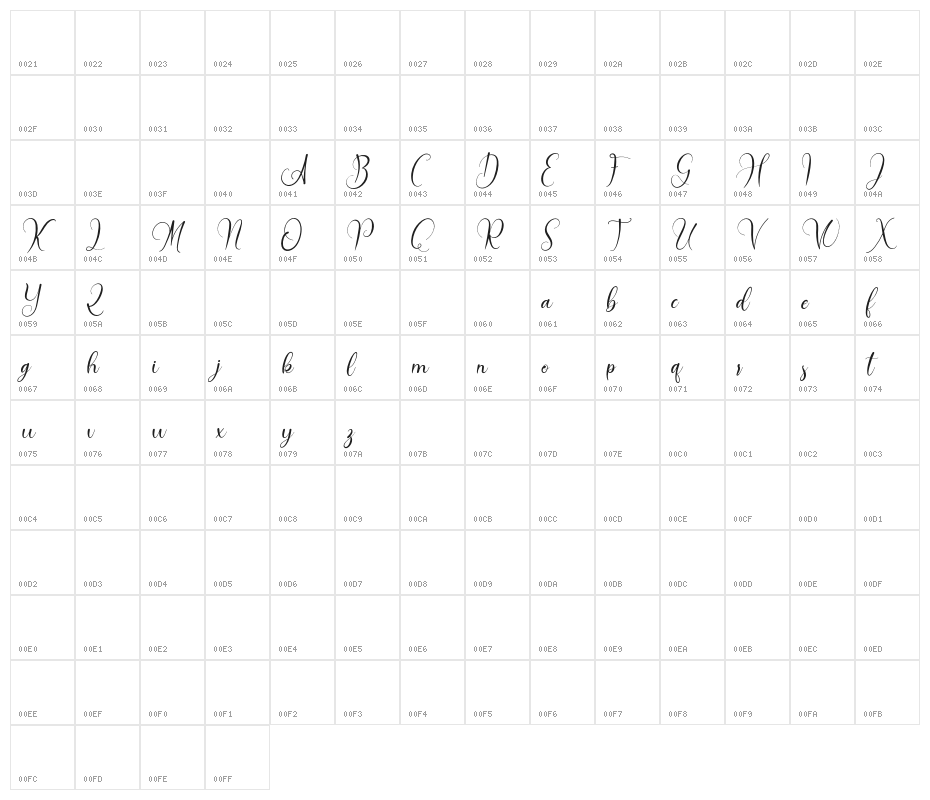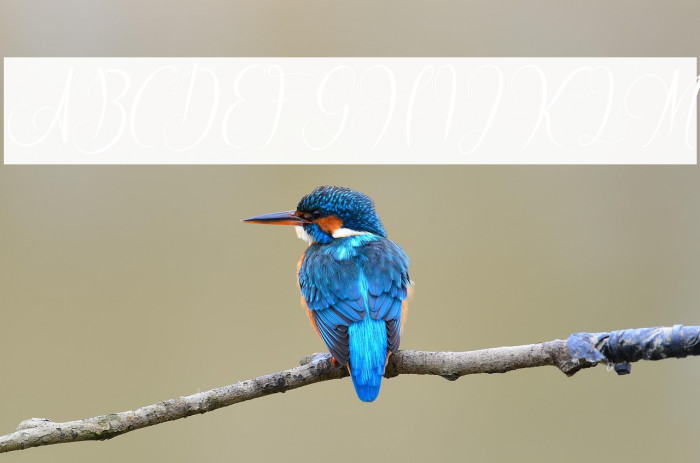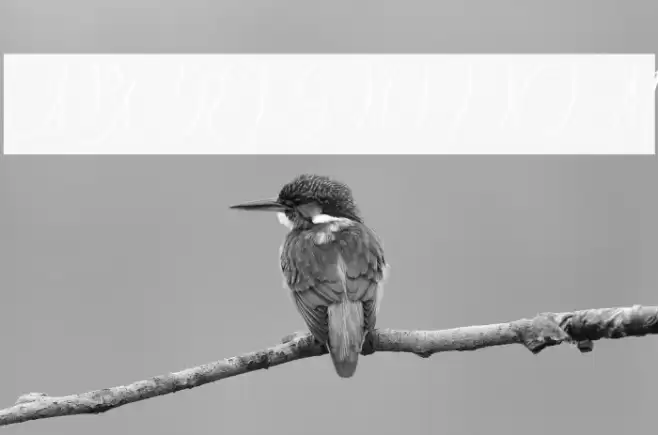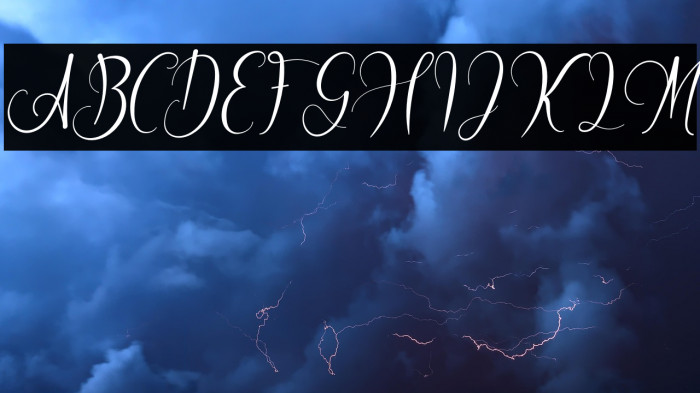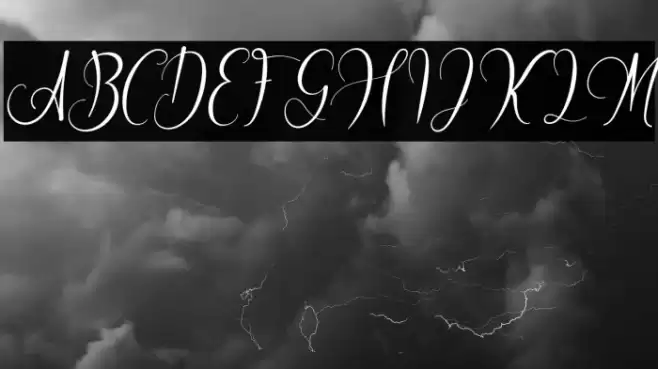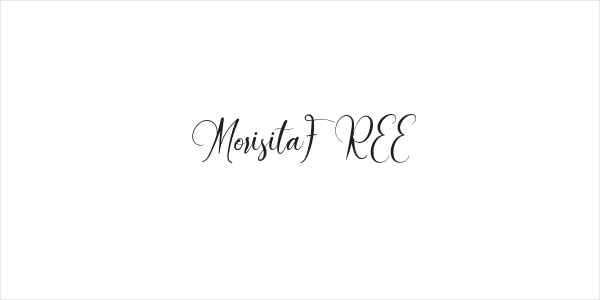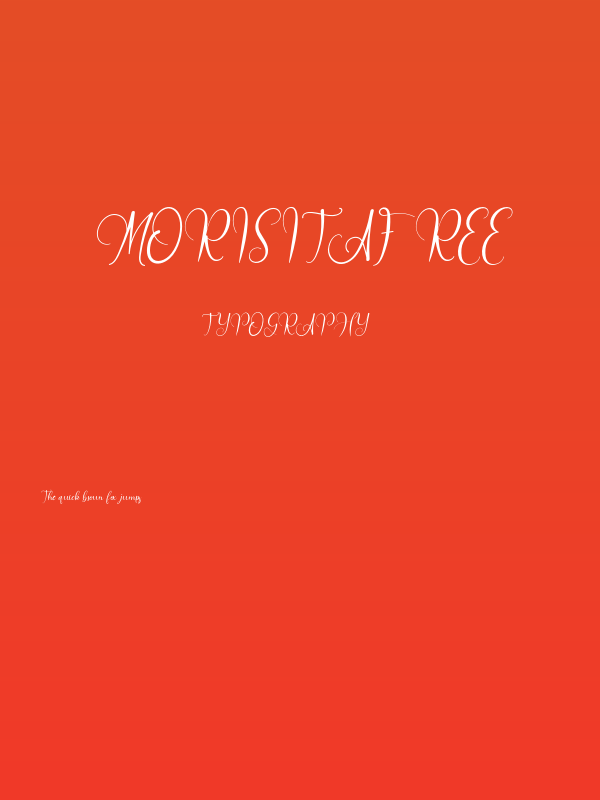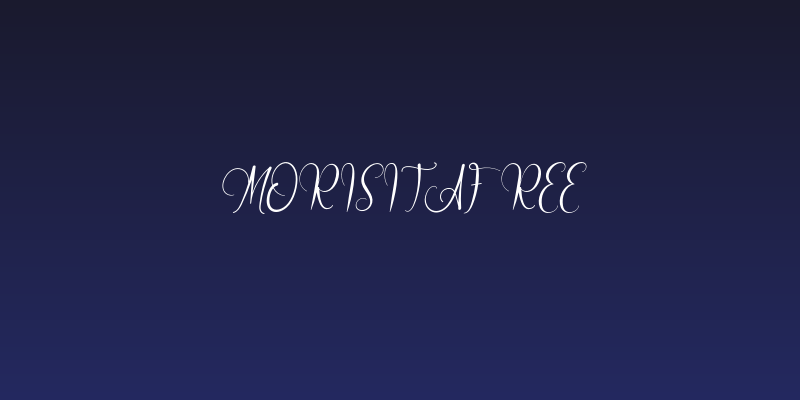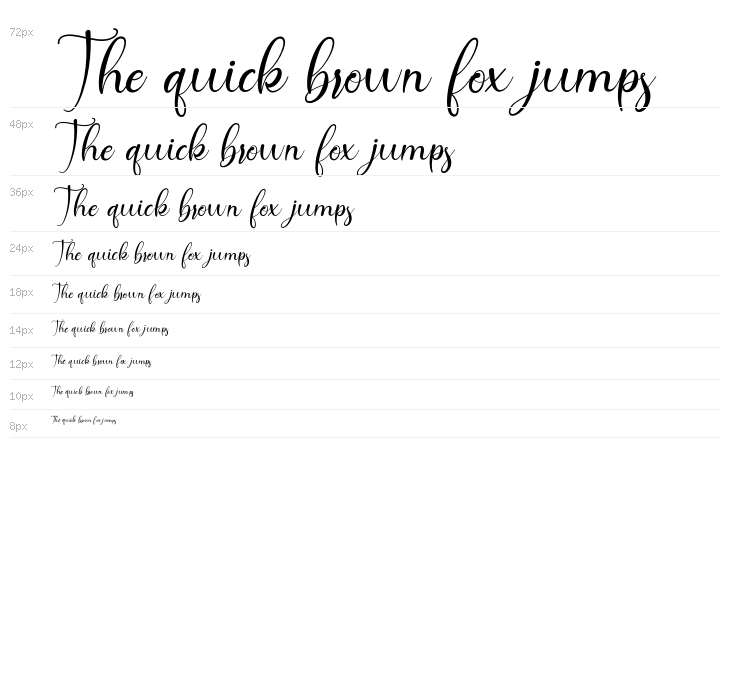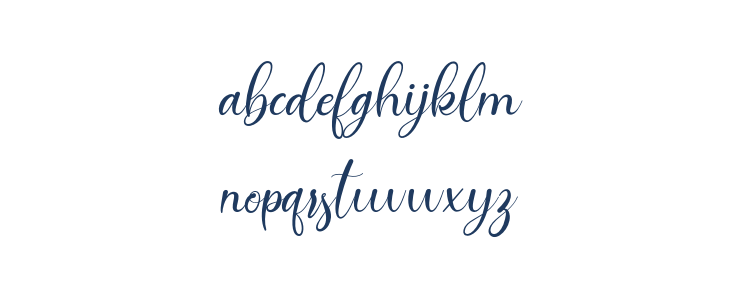
MorisitaFREE Font
MorisitaFREE Description
This font features an elegant and flowing script style, characterized by its graceful curves and fluid strokes. The uppercase letters are ornate, with sweeping lines and delicate flourishes that add a touch of sophistication. The lowercase letters maintain a consistent flow, complementing the uppercase with their smooth, connected forms. The overall appearance is both stylish and refined, making it suitable for formal invitations, branding, and decorative purposes. The font's design emphasizes a sense of movement and elegance, capturing the essence of classic calligraphy with a modern twist.
| Use Case | Logos, Invitations, Decorative headings |
| Proposed Projects | Ideal for wedding invitations, luxury branding, greeting cards, and decorative headings. |